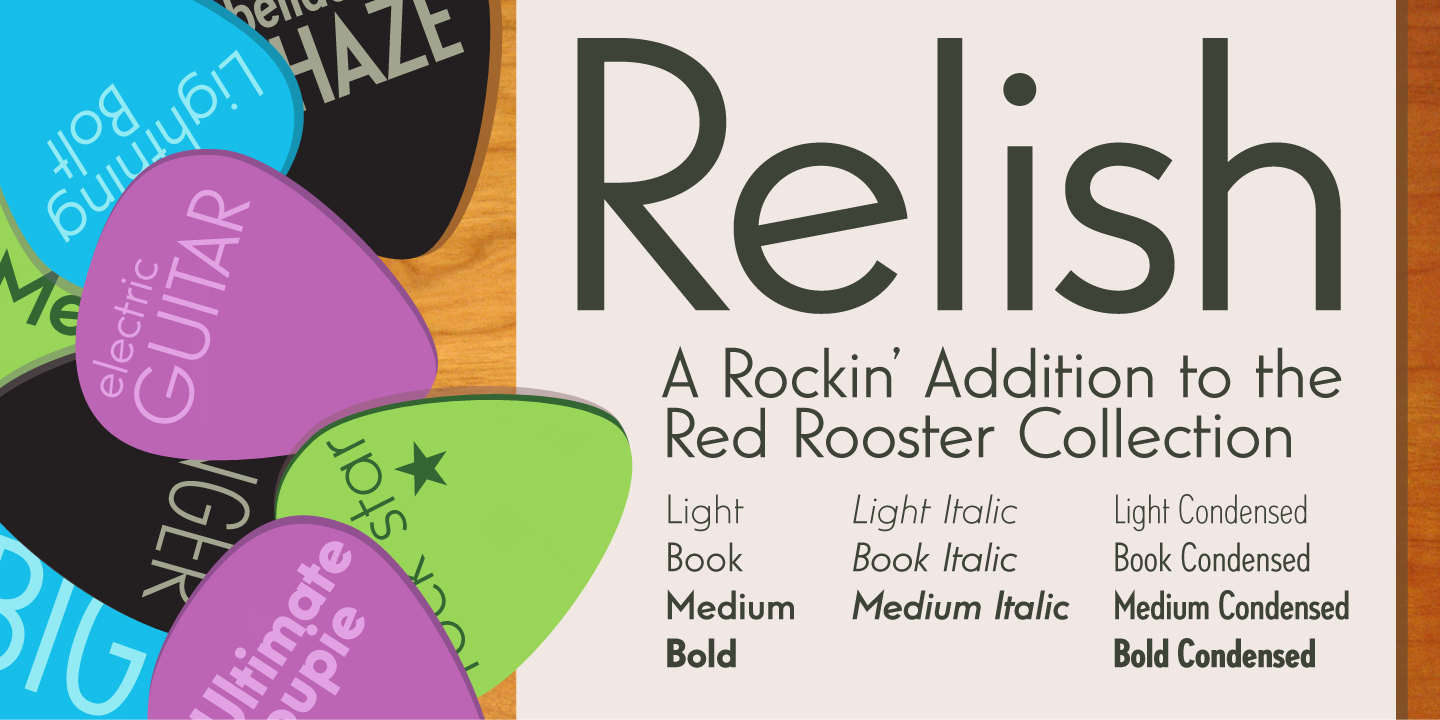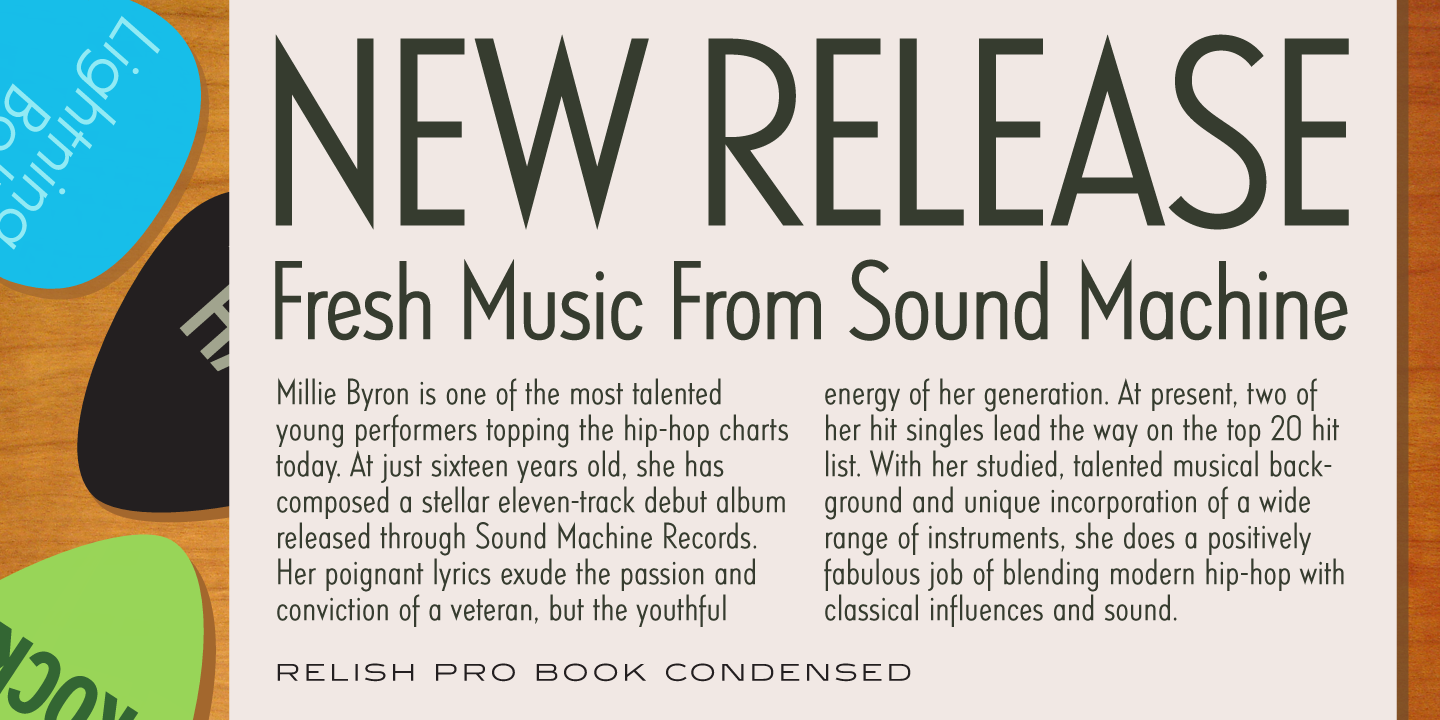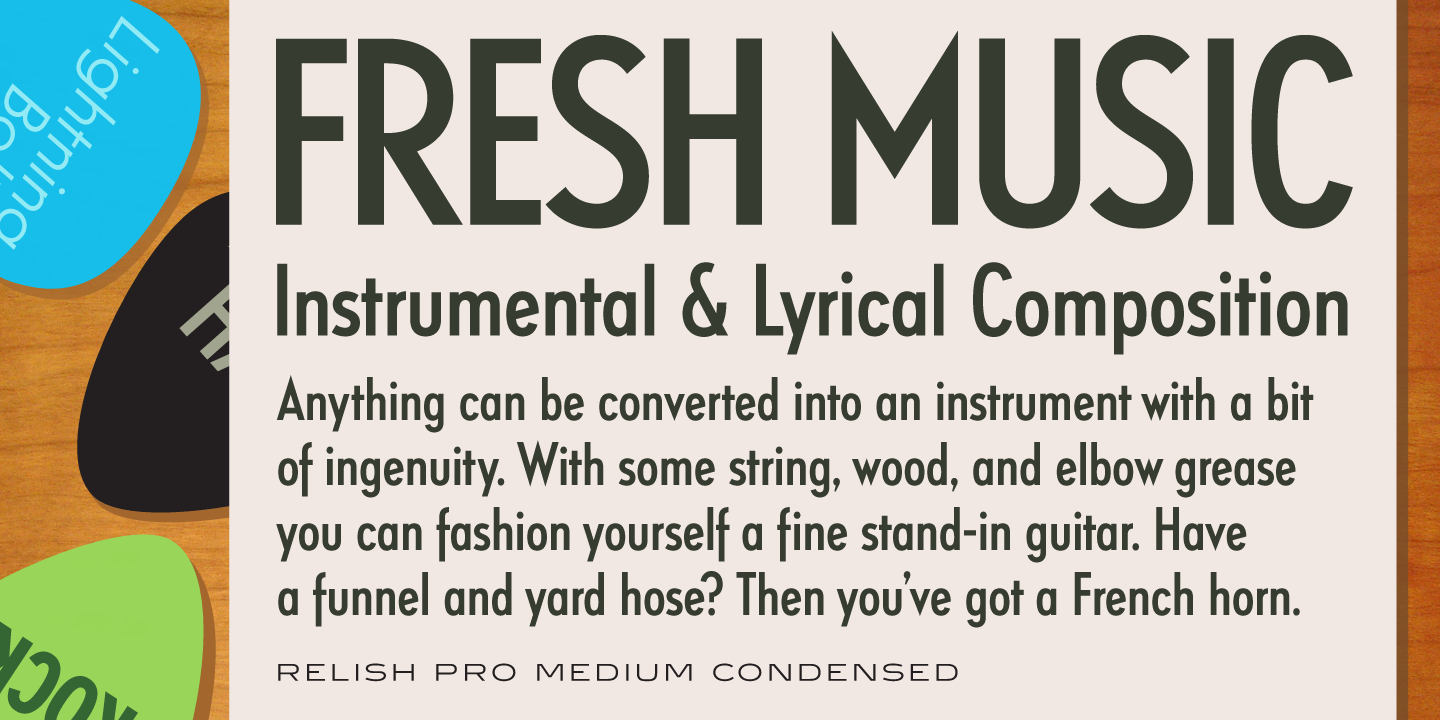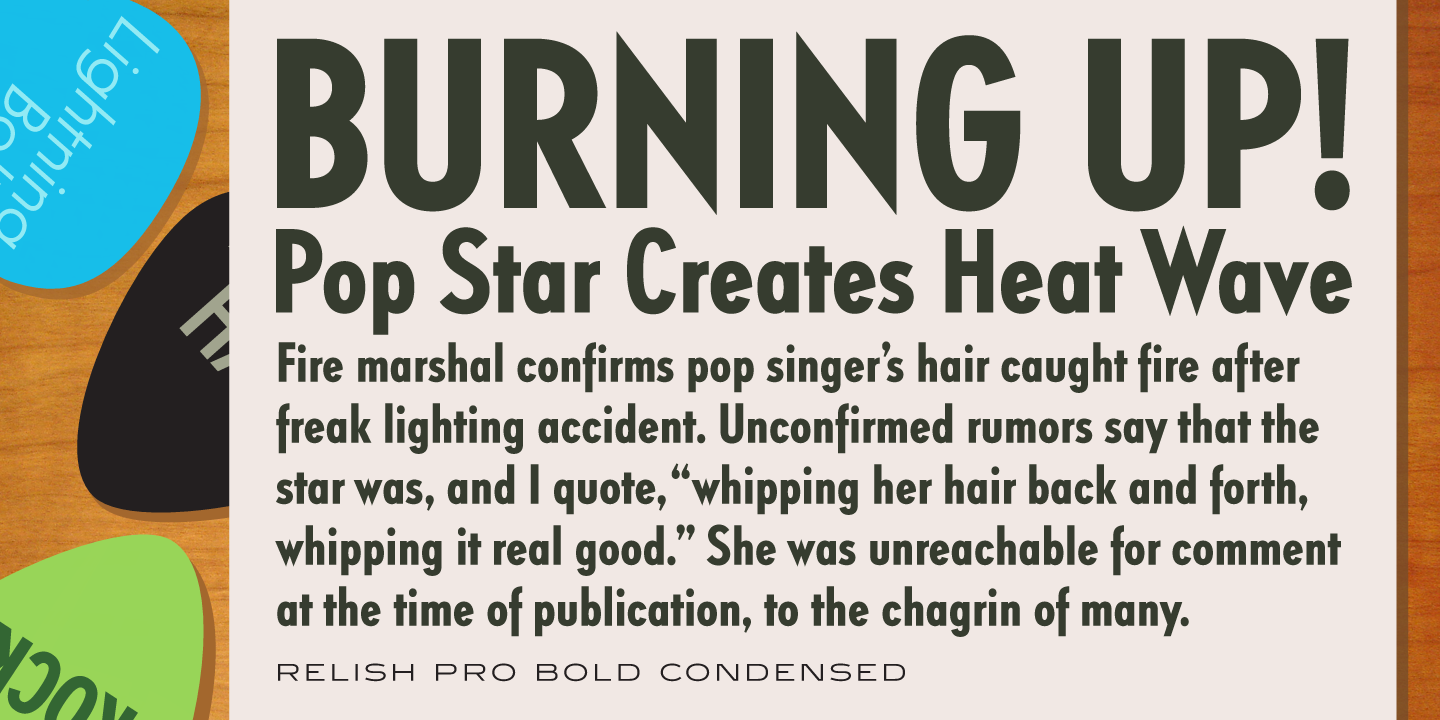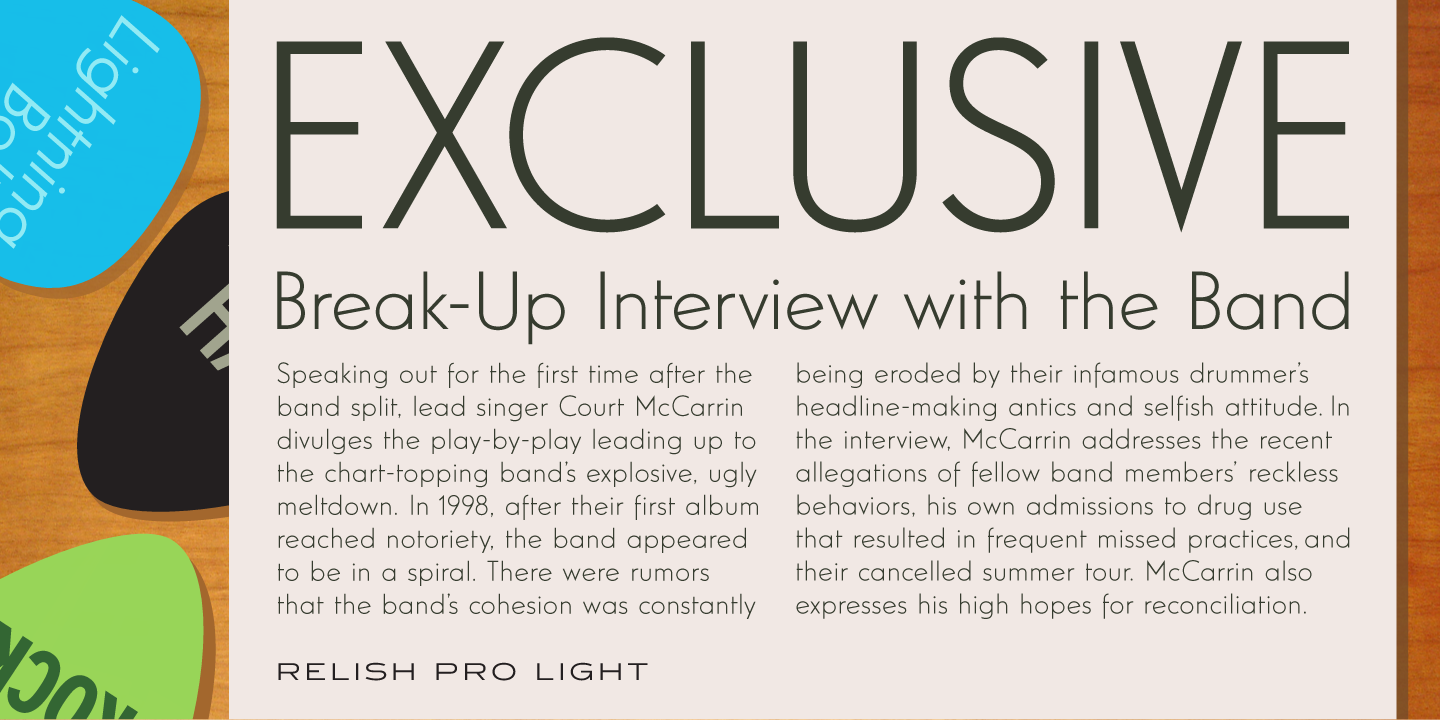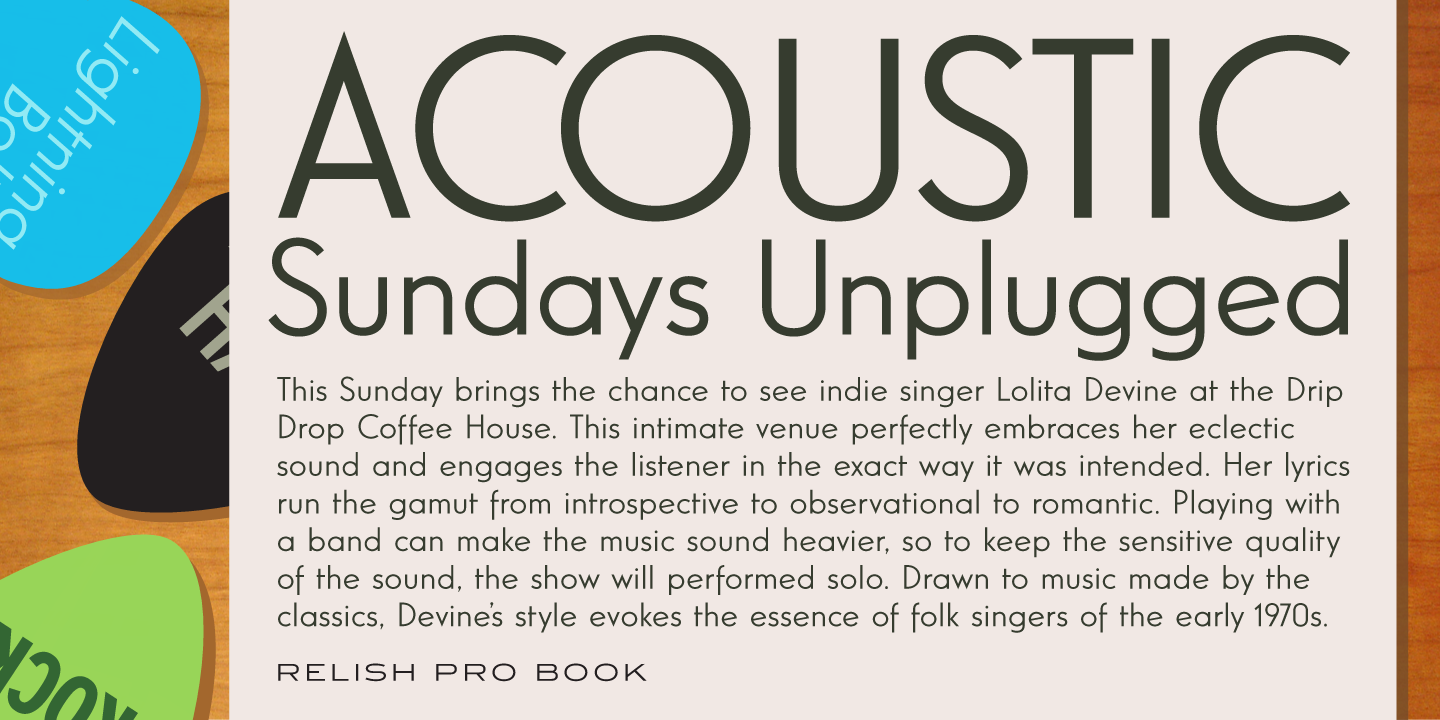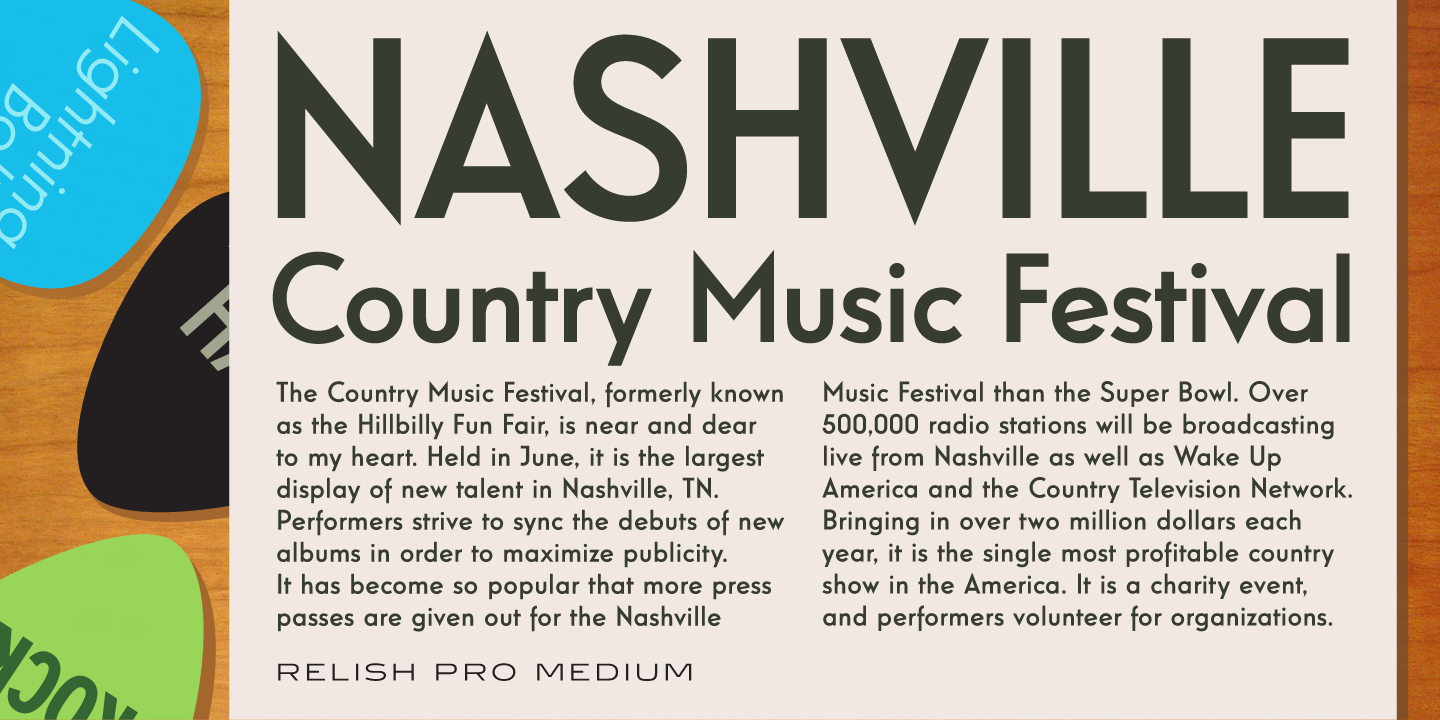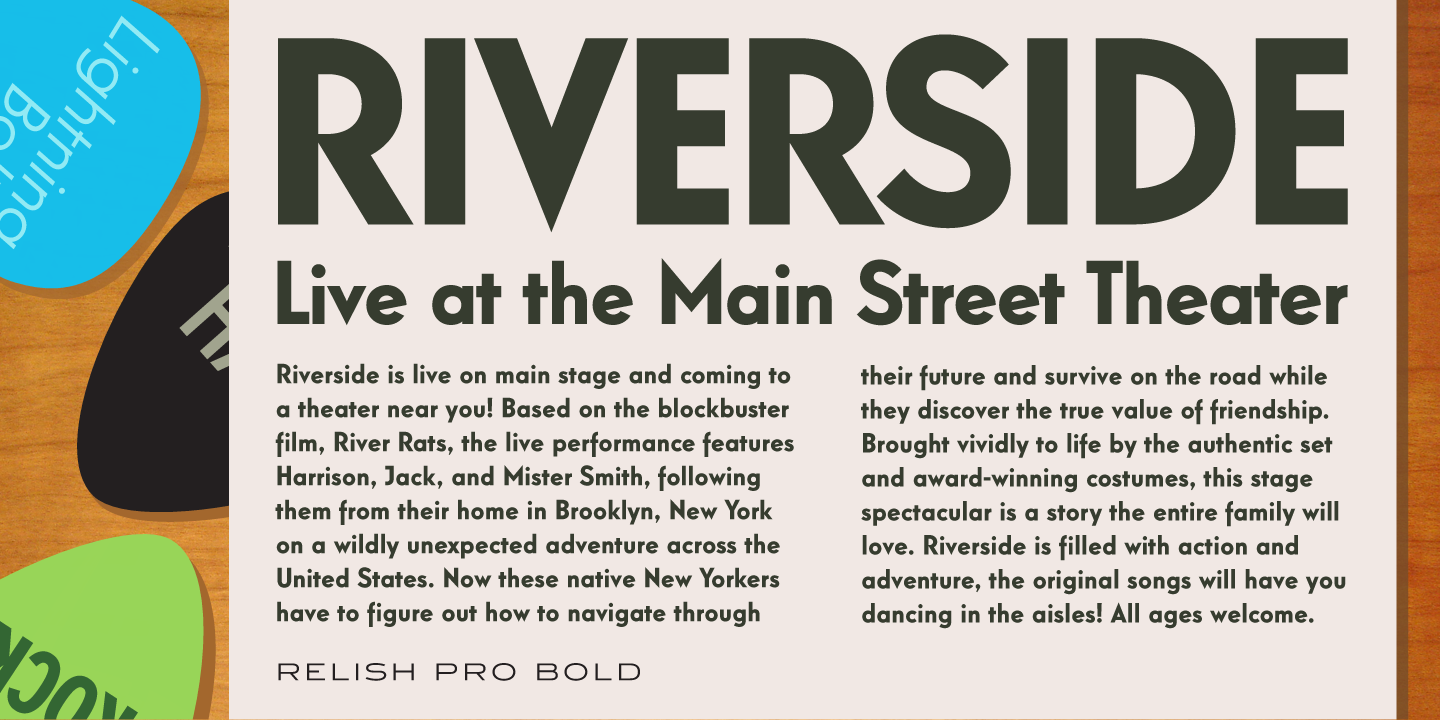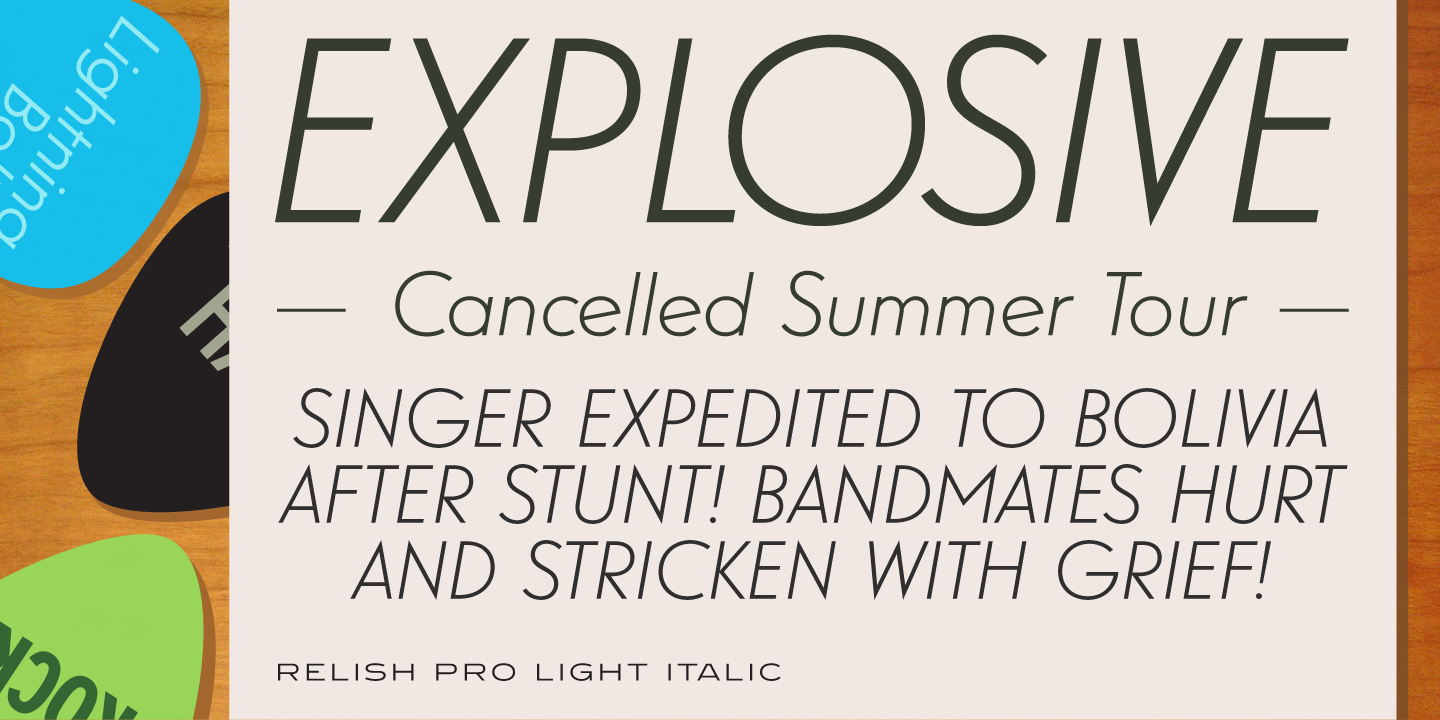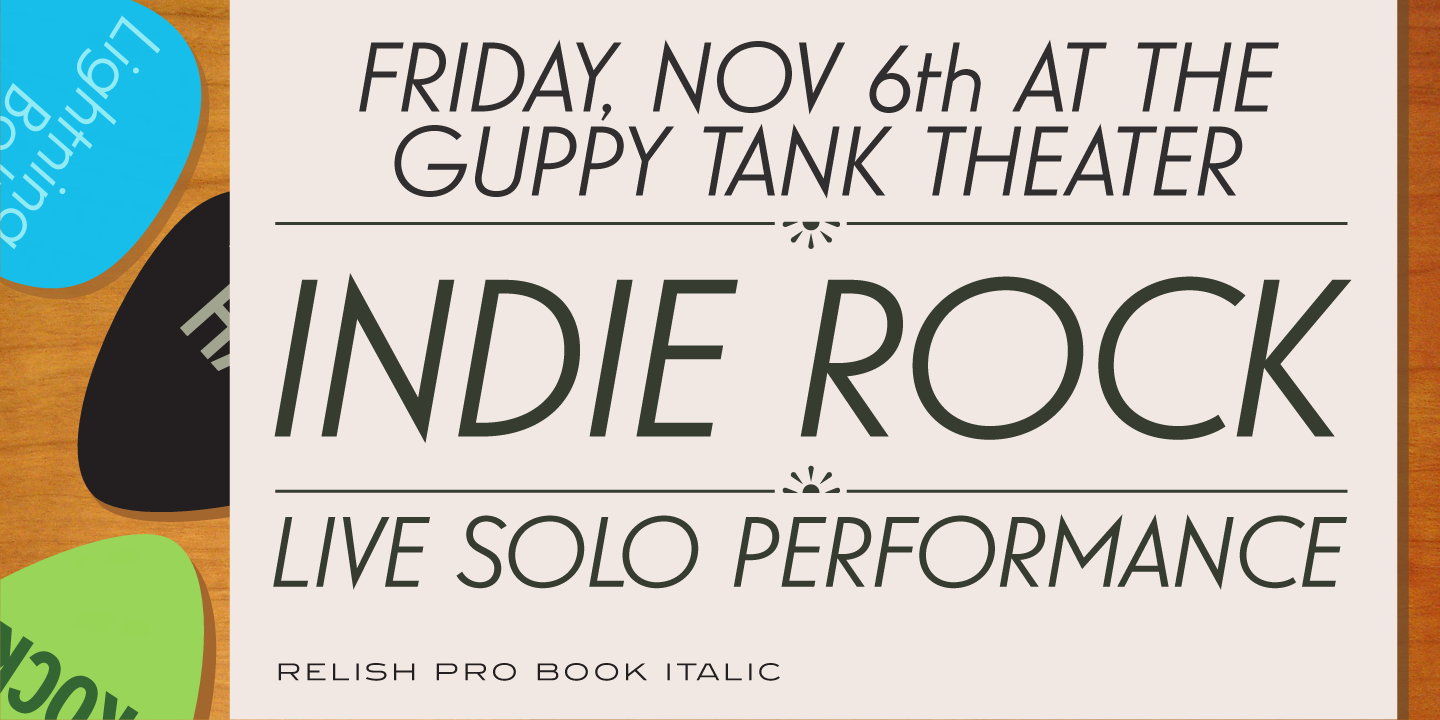
Relish Font Family
Relish is a traditional sans serif font family with round punctuation, and is sister to International TypeFounders’ ‘Guildford’ and ‘Windlesham’ typefaces. It was created and produced in 2011 by Steve Jackaman (ITF) and Ashley Muir. Relish has a geometric, modern look. Wherever Relish is utilized, whether it be in paragraph or display size, a visual cleanliness is always present.
OpenType Features
• Common Ligatures
• Fractions
• Ordinal Numerals
• Stylistic Alternates
• Stylistic Sets
• Subscript
• Superscript